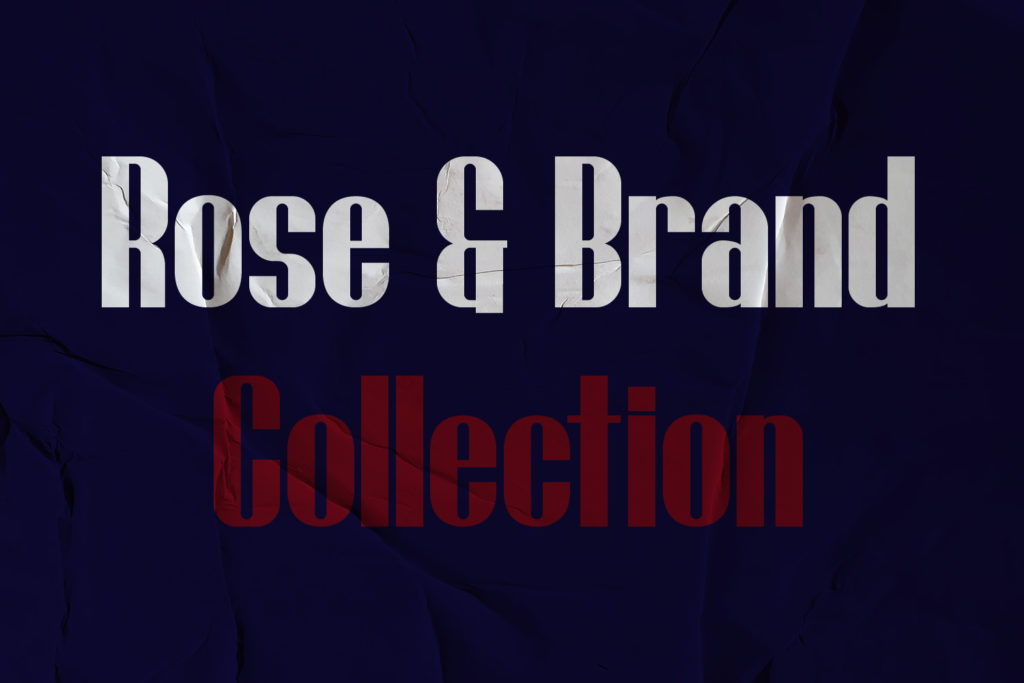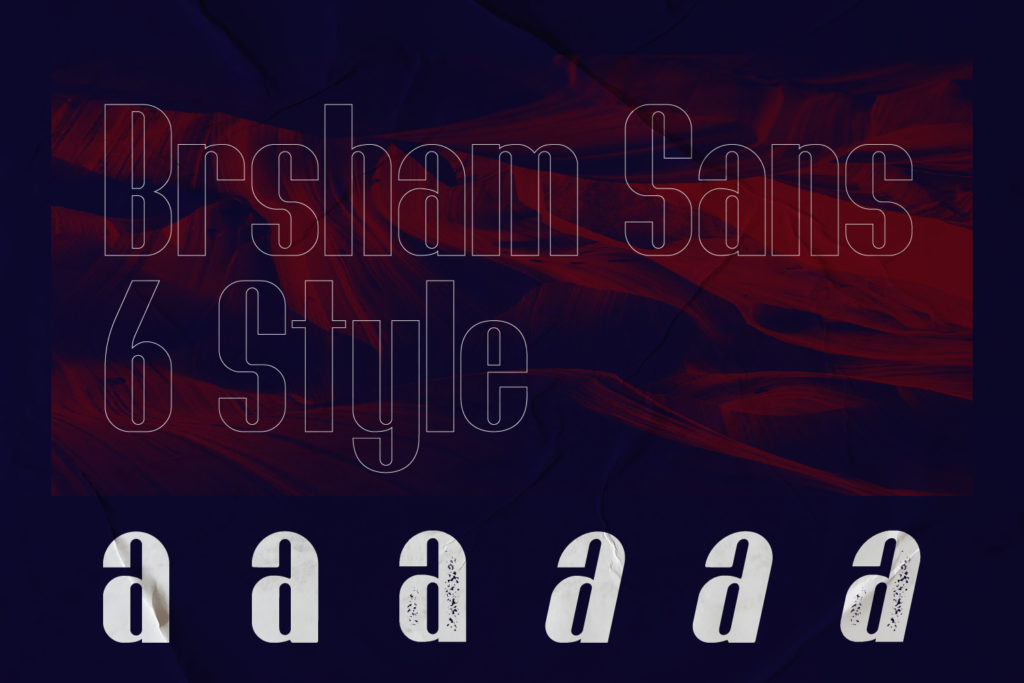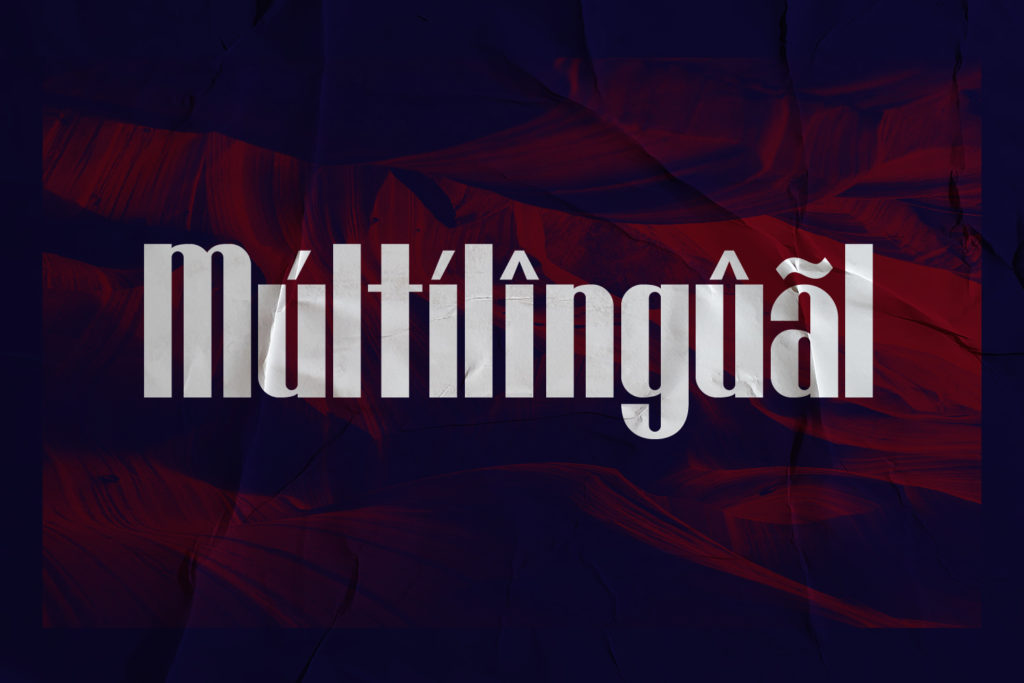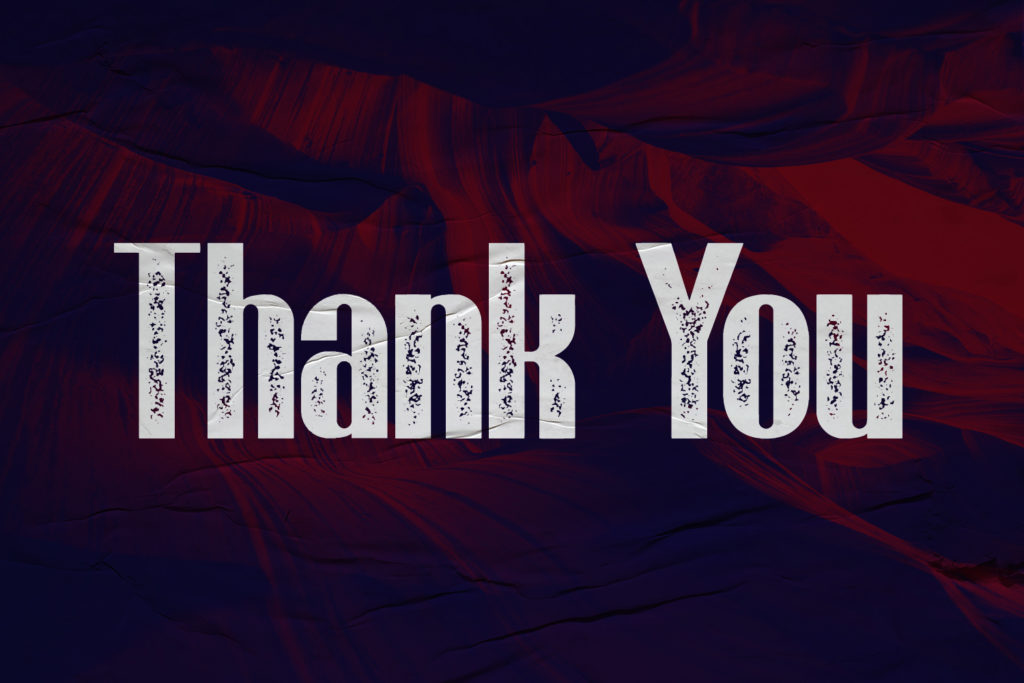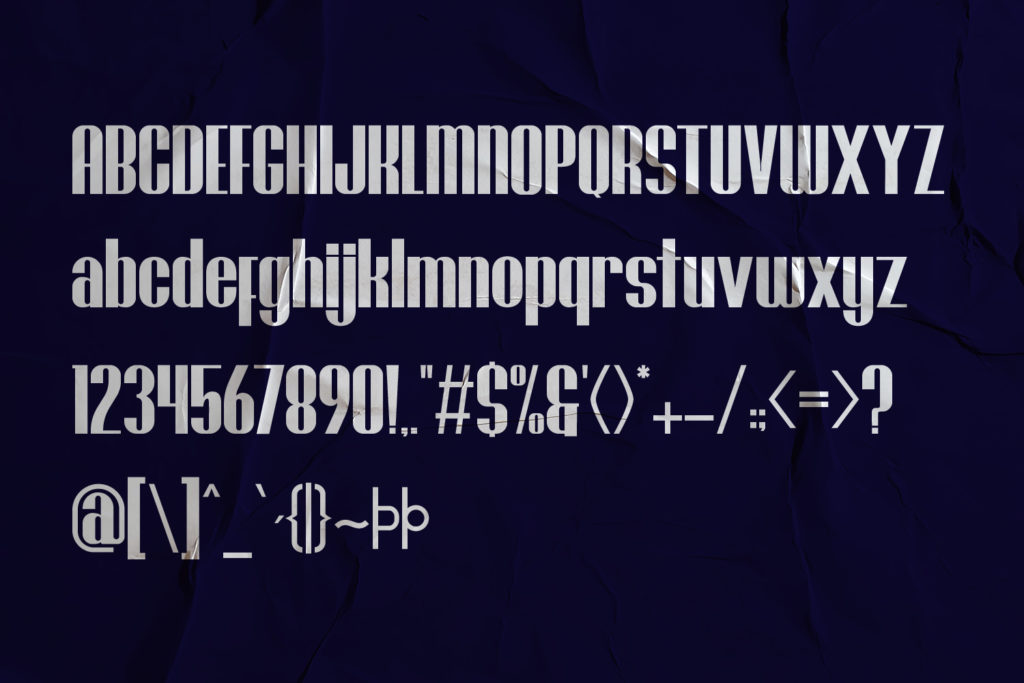
Brasham Fonts
In the professional world, credibility is currency — and the typography you choose is either depositing into that account or withdrawing from it with every communication you send. Brasham Fonts is a clean, structured sans serif font family engineered to consistently build typographic credibility for professional organisations that cannot afford to look anything other than completely authoritative.
Brasham’s design is built on the principle that professional typography should communicate competence through structure, not decoration. The letterforms are constructed with systematic geometric precision — consistent stroke widths, balanced proportions, and the kind of clean, rational architecture that signals analytical discipline and intellectual rigour to professionally-trained eyes. Subtle humanist refinements prevent the font from feeling cold or mechanical, maintaining the human dimension that all effective professional communication requires. The result is a sans serif family that is simultaneously rigorous and readable, authoritative and accessible.
Law firms, legal technology companies, and professional services organisations find Brasham creates the typographic authority that high-stakes professional contexts demand — clients and opposing counsel alike register the competence signal that well-chosen professional typography projects. Financial institutions, accounting firms, investment management companies, and financial brand typography contexts across the sector find Brasham communicates fiscal responsibility and analytical precision through its structured, disciplined character. Government agencies, public sector organisations, and regulatory bodies use Brasham for communications that must project impartiality, authority, and institutional seriousness.
Corporate annual reports, professional service firm pitch materials, institutional research publications, and any communication that will be judged as much on its presentation as its content will find Brasham elevates the entire document through the quality of its typographic foundation.